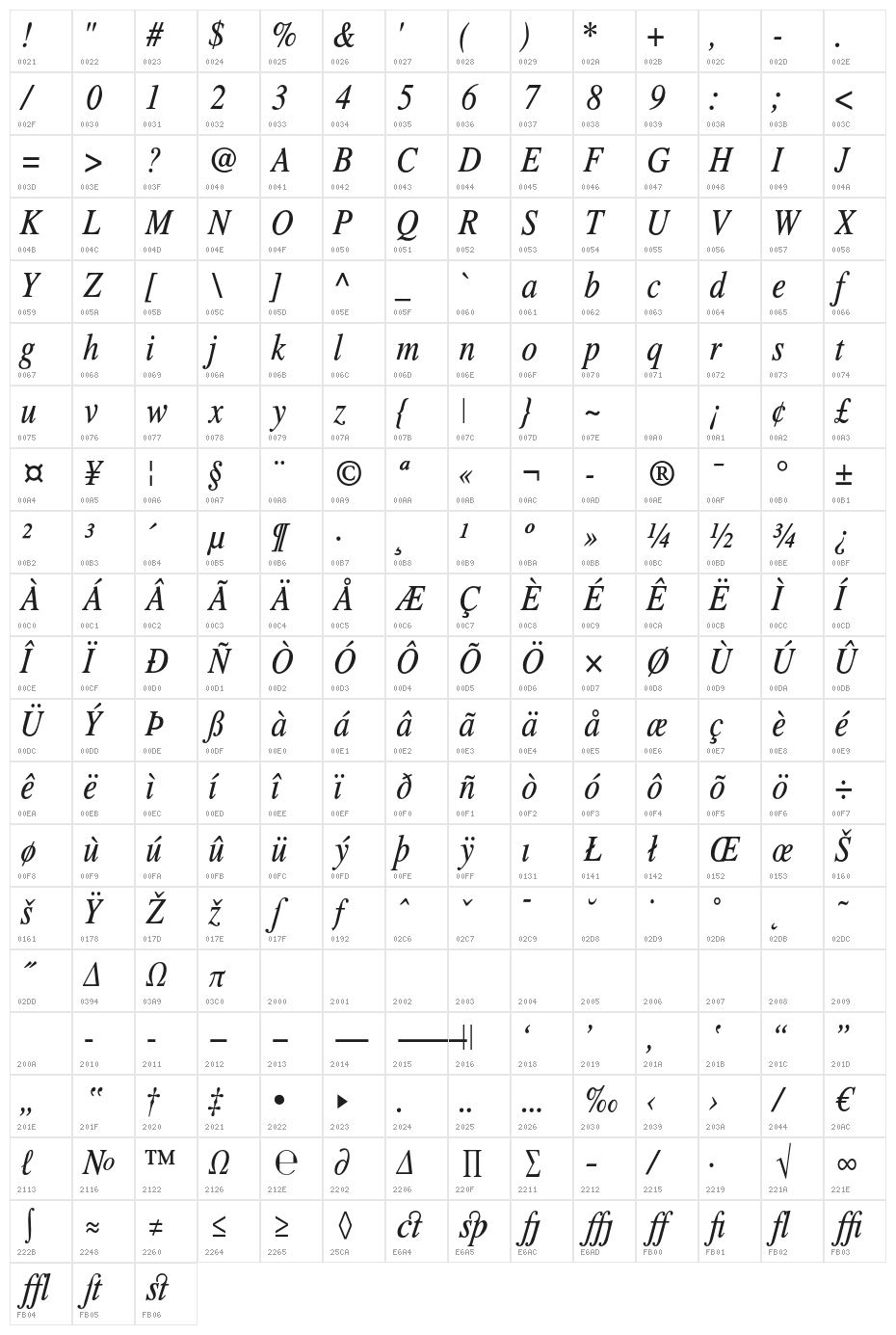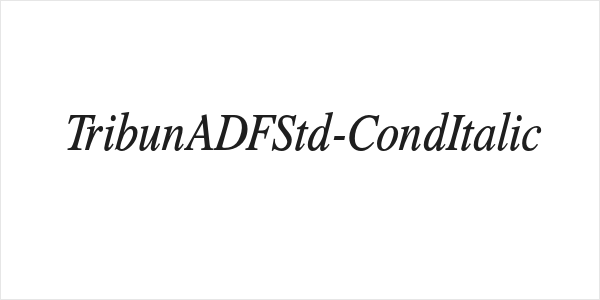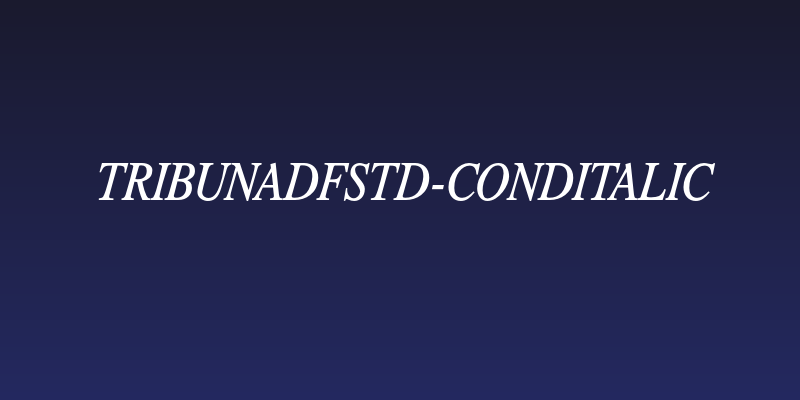
TribunADFStd-CondItalic Font
TribunADFStd-CondItalic Description
This font features a classic serif style with a distinct italic slant, giving it an elegant and sophisticated appearance. The characters are well-defined with sharp serifs and a moderate contrast between thick and thin strokes, enhancing readability while maintaining a refined look. The condensed width allows for efficient use of space, making it suitable for both headlines and body text. The font's italic nature adds a dynamic and flowing quality, ideal for conveying emphasis or a sense of motion. Its overall style is timeless, making it versatile for various design applications.
| Proposed Projects | Ideal for editorial design, book covers, formal invitations, and branding materials. |